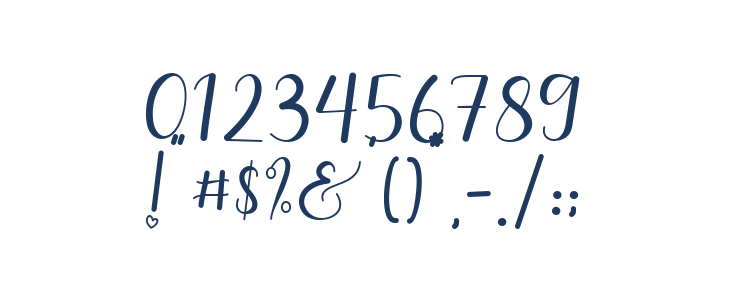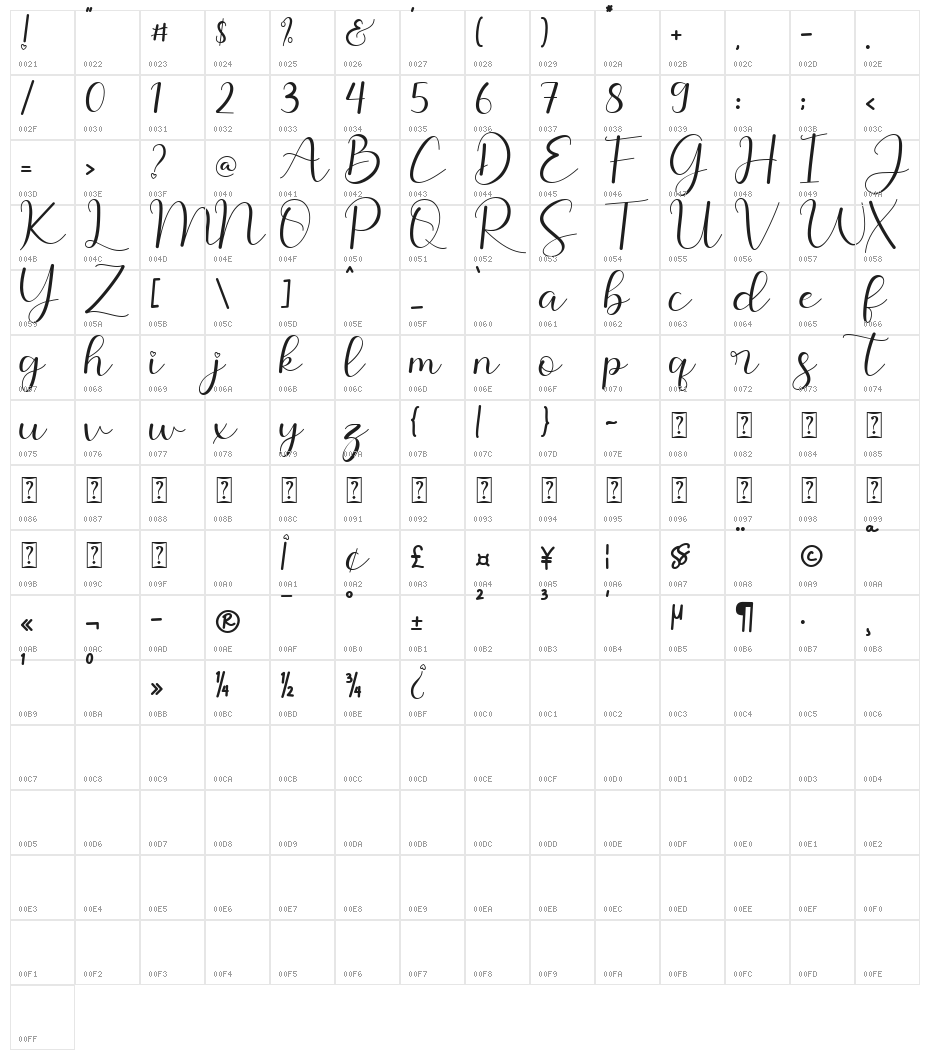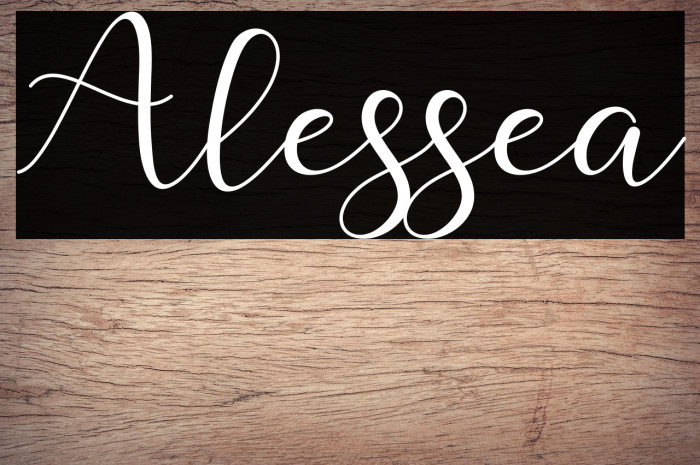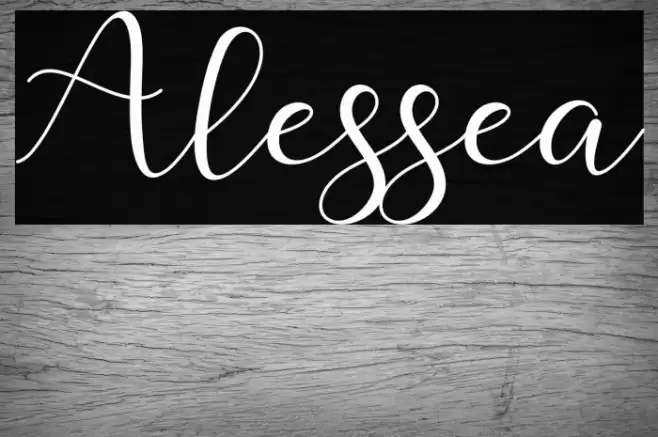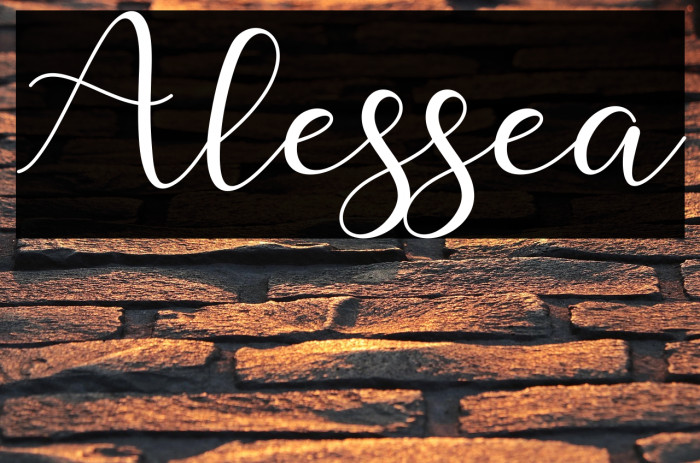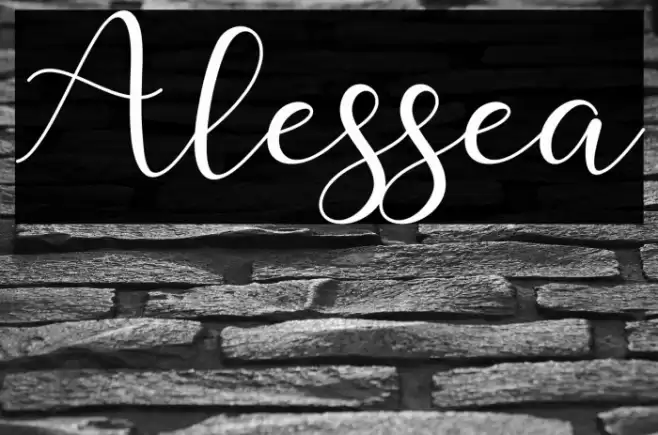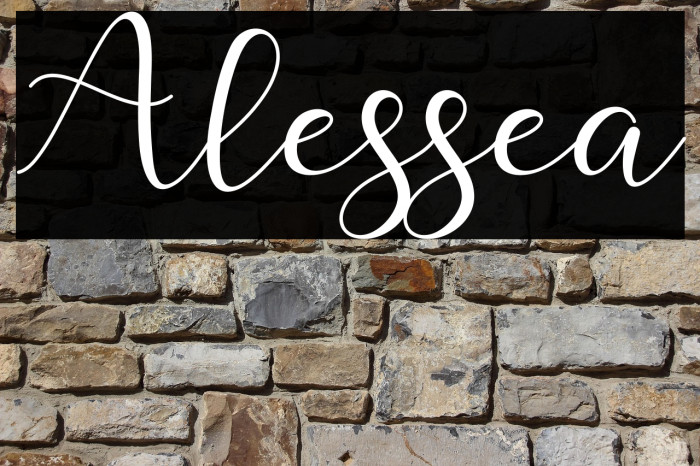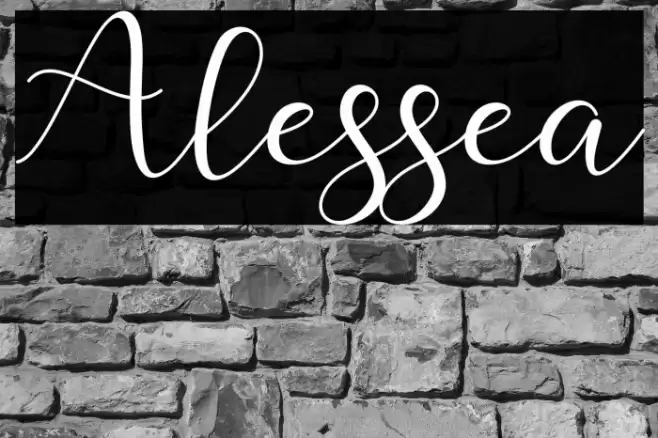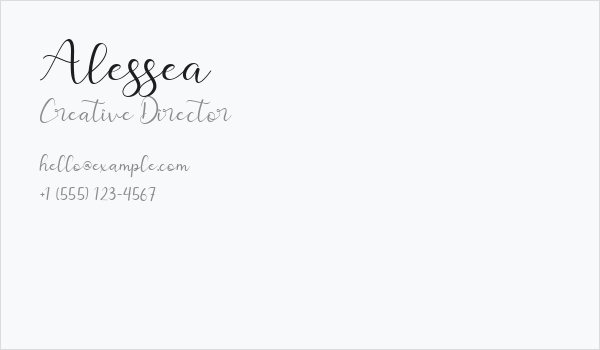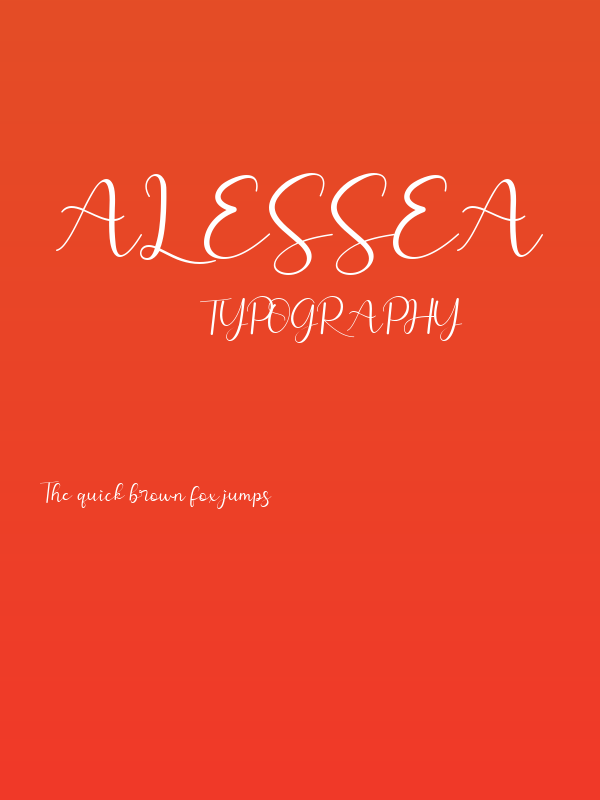
Alessea Font
Alessea Description
This elegant script font features flowing, interconnected letters that exude a sense of sophistication and grace. The uppercase letters are tall and slender, with delicate loops and swashes that add a touch of flair. The lowercase letters maintain a consistent style, with some characters featuring charming embellishments like small hearts. The numerals are bold and slightly more structured, providing a nice contrast to the fluidity of the letters. Special characters are thoughtfully designed to match the overall aesthetic, making this font versatile for various design needs.
| Proposed Projects | Ideal for wedding invitations, greeting cards, branding projects, and elegant logos. |